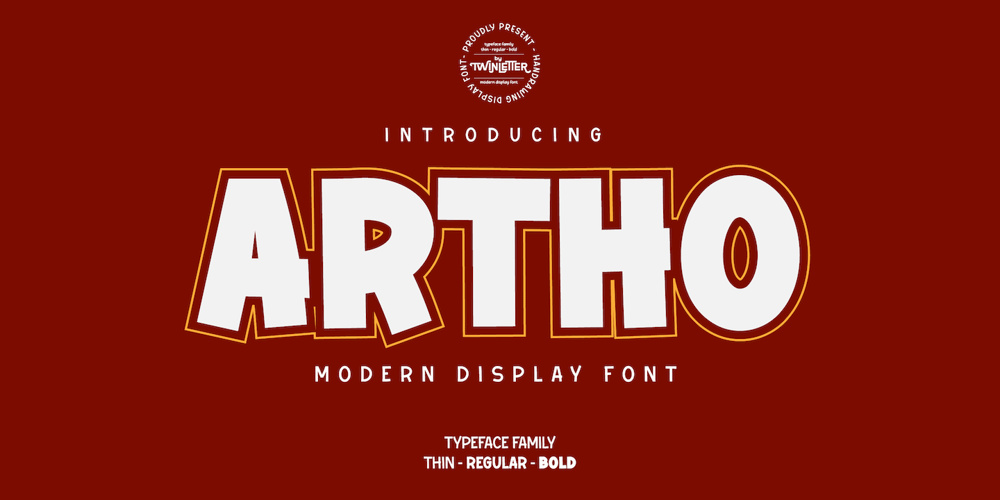
Artho
Artho font
Artho Font Family was designed by Rozikan and published by Twinletter. Artho contains 3 styles and family package options. Our newest font named Artho has a strong and bold character but is relaxed and fun to look at. so it is appropriate if you use this font for your project that is friendly fun but has a strong impression and attracts attention. This font is also equipped with three choices of thin, regular, and bold. makes it easier and more flexible for you to combine them to suit your needs.This handwritten font is perfect for children’s magazines,drink banners, games, posters, beverage, outdoor events, thumbnails, food banners, cheerful writing, film titles, quotes, titles, logos, and various kinds of projects you need, of course, your various design projects will be perfect and extraordinary if you use this font because this font is equipped with a complimentary font family, both for titles and subtitles and sentence text.start using our fonts for your amazing projects.